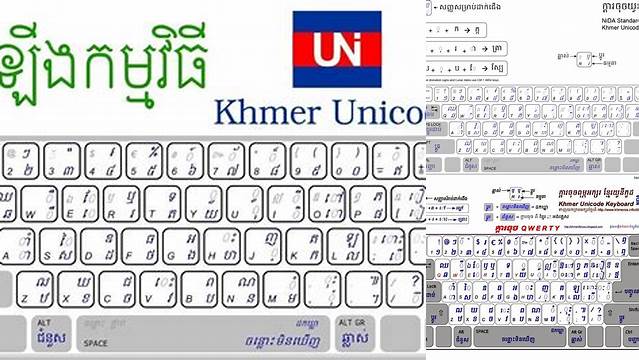
Hey guys! Are you looking to download Khmer Unicode fonts for your Windows 10 system? You've come to the right place! Typing in Khmer can be a breeze once you have the correct fonts installed. This article will guide you through everything you need to know about Khmer Unicode fonts, why they're important, and how to get them set up on your computer. So, let's dive in and make your Khmer typing experience smooth and easy! We'll cover everything from the basics to troubleshooting tips, so you'll be a pro in no time. Let's get started!
1. What is Khmer Unicode Font?
Khmer Unicode fonts are essential for anyone who wants to type in the Khmer script on their computer. Unicode is a universal character encoding standard that allows computers to represent text from almost all writing systems. Without Khmer Unicode font, your computer might not display Khmer characters correctly, showing boxes or other symbols instead. So, when we talk about free download Khmer Unicode font for Windows 10, we're talking about getting the right tool to make your digital communication in Khmer seamless. These fonts ensure that your documents, emails, and web content display Khmer text accurately. Think of it as the language pack for your computer, but specifically for Khmer! Having the correct fonts installed not only ensures readability but also maintains the integrity of the script across different devices and platforms.
2. Why You Need Khmer Unicode Fonts on Windows 10
Why do you actually need Khmer Unicode fonts on Windows 10? Well, if you're planning to create documents, send emails, or browse websites in Khmer, these fonts are non-negotiable. Without them, you'll likely see gibberish instead of the beautiful Khmer script. Imagine trying to read a book with missing letters – that's what it's like trying to work with Khmer text without the right fonts. Plus, using Khmer Unicode fonts ensures that your text is universally readable. This means that anyone, anywhere, with a computer that supports Unicode, will be able to view your content correctly. This is especially important for official documents, academic papers, and professional communications where clarity and accuracy are key. So, when considering a free download Khmer Unicode font for Windows 10, remember you're not just getting fonts; you're ensuring your words are seen and understood as intended.
3. Best Khmer Unicode Fonts for Windows 10
Okay, so you're convinced you need Khmer Unicode fonts, but which ones are the best? There are a few standout options that are widely used and highly recommended. One popular choice is Khmer OS, a font that's known for its clarity and readability. Another great option is MoolBoran, which offers a more traditional look. You might also want to check out Limon. Each font has its unique style, so it's worth trying a few to see which one you prefer. When you're looking for a free download Khmer Unicode font for Windows 10, consider what kind of documents you'll be creating. For formal documents, a clean and professional font like Khmer OS might be ideal. For more creative or traditional content, MoolBoran could be a better fit. Ultimately, the best Khmer Unicode font is the one that looks good to you and meets your specific needs.
7. Setting Khmer as Your Keyboard Language
Now that you've got your free download Khmer Unicode font for Windows 10 installed, it's time to set Khmer as your keyboard language. This will allow you to actually type in Khmer. First, go to your Windows settings by clicking the Start button and then the gear icon. In Settings, click on “Time & Language,” and then select “Language” from the left sidebar. Under the “Preferred languages” section, click “Add a language.” Search for “Khmer” and select it. Windows will then download and install the language pack. Once installed, you'll see Khmer in your list of preferred languages. To switch to the Khmer keyboard, look for the language icon in your system tray (usually located in the bottom-right corner of your screen). Click on it, and you'll see a menu of available languages. Select Khmer, and voila! You're now ready to type in Khmer. If you ever want to switch back, just click the language icon again and choose your preferred language.
8. Typing in Khmer: Keyboard Layout and Tips
Okay, you've done the free download Khmer Unicode font for Windows 10 and set up your keyboard. Now, let's talk about actually typing in Khmer! The Khmer keyboard layout might look a little different from what you're used to. It's designed to accommodate the unique characters and symbols of the Khmer script. So, it might take a little practice to get the hang of it. One helpful tip is to use an on-screen keyboard to familiarize yourself with the layout. Windows 10 has a built-in on-screen keyboard that you can access by searching for “On-Screen Keyboard” in the Start menu. Another tip is to look for online resources that provide keyboard layouts and typing tutorials. There are also software programs that can help you learn the Khmer keyboard layout more efficiently. Don't get discouraged if it feels awkward at first. With a bit of practice, you'll be typing in Khmer like a pro in no time. Remember, the key is consistency and patience. Keep practicing, and you'll get there!
9. Troubleshooting Khmer Unicode Font Issues
Sometimes, even after a successful free download Khmer Unicode font for Windows 10 and installation, you might encounter issues. Don't worry, it happens! One common problem is that the Khmer text appears as boxes or squares instead of the actual characters. This usually means that the font isn't being recognized correctly. A simple fix for this is to restart the application you're using or even your computer. Another issue could be that the font isn't displaying correctly in certain programs. In this case, try setting the default font in the program's settings to your Khmer Unicode font. If you're still having trouble, check your language settings to make sure Khmer is set as the preferred language. Sometimes, conflicts with other fonts can also cause problems. If you suspect this is the case, try temporarily disabling other fonts to see if that resolves the issue. And if all else fails, a quick search online can often provide solutions to specific problems you're facing. Remember, troubleshooting is a normal part of using any new technology, so don't get frustrated – just keep trying!
10. Using Khmer Unicode Font in Microsoft Word
Using your free download Khmer Unicode font for Windows 10 in Microsoft Word is super easy and lets you create beautiful Khmer documents. First, make sure you've installed the font and set Khmer as your keyboard language, as we discussed earlier. Now, open Microsoft Word and start a new document. To type in Khmer, you'll need to select your Khmer Unicode font from the font dropdown menu in the Home tab. Once you've selected the font, switch your keyboard language to Khmer using the language icon in the system tray. Now you can start typing in Khmer! If you don't see the Khmer font in the list, try restarting Word. Sometimes, the application needs to be restarted to recognize newly installed fonts. You can also adjust the font size and style just like you would with any other font. With Khmer Unicode fonts in Word, you can create everything from simple letters to complex reports in Khmer, making your digital communication even richer.
11. Khmer Unicode Font for Web Browsing
Having a free download Khmer Unicode font for Windows 10 is crucial for a smooth web browsing experience in Khmer. Without the correct fonts installed, websites that use Khmer script might display garbled text or empty boxes. Fortunately, installing Khmer Unicode fonts ensures that web browsers can render Khmer text correctly. Most modern browsers, like Chrome, Firefox, and Edge, automatically detect and use Unicode fonts if they're available on your system. So, once you've installed your Khmer Unicode fonts, you should be able to view Khmer websites without any issues. If you do encounter problems, check your browser settings to ensure that the default font is set to a Khmer Unicode font. You can usually find font settings in the browser's appearance or language options. By having the right fonts installed, you'll be able to enjoy Khmer content online, whether it's news articles, social media posts, or educational resources.
12. Using Khmer Unicode Font in Adobe Photoshop
If you're a graphic designer or work with images, having a free download Khmer Unicode font for Windows 10 is essential for using Khmer text in Adobe Photoshop. Just like with other applications, you need to ensure the font is installed on your system first. Once that's done, open Photoshop and create a new document or open an existing one. To add Khmer text, select the Type tool (the “T” icon) and click on your canvas. Before you start typing, choose your Khmer Unicode font from the font dropdown menu in the Character panel. If you don't see the font, make sure Photoshop is recognizing it by restarting the application. Also, ensure that your keyboard language is set to Khmer. Now, you can type in Khmer directly onto your image. Photoshop allows you to adjust the font size, color, and other text properties, giving you full control over how your Khmer text looks. Whether you're designing posters, social media graphics, or website banners, Khmer Unicode fonts in Photoshop ensure your Khmer text is displayed beautifully and accurately.
13. Khmer Unicode Font for Email Communication
For effective email communication in Khmer, a free download Khmer Unicode font for Windows 10 is a must-have. When you send emails in Khmer, you want to be sure that the recipient sees your message as intended. Using Khmer Unicode fonts ensures that your email text displays correctly, regardless of the recipient's operating system or email client. To use Khmer Unicode fonts in your email, first, make sure you've installed the font on your computer. Then, open your email client (like Outlook, Gmail, or Thunderbird) and start composing a new email. Before you start typing, select your Khmer Unicode font from the font options. You might need to adjust your email client’s settings to allow for Unicode fonts if you're having trouble. Also, ensure that your keyboard language is set to Khmer. Now you can type your email in Khmer, confident that your message will be clear and readable. Using Khmer Unicode fonts in your emails not only makes your messages look professional but also avoids any potential misunderstandings due to incorrect character display.
14. Khmer Unicode Font for Social Media
If you're active on social media and want to share posts in Khmer, getting a free download Khmer Unicode font for Windows 10 is super important. Social media platforms like Facebook, Twitter, and Instagram rely on Unicode to display text correctly. Without Khmer Unicode fonts installed on your device, your Khmer posts might appear as a jumble of boxes or unrecognizable characters to others. To ensure your Khmer posts look great, first, download and install a Khmer Unicode font on your Windows 10 system. Then, make sure Khmer is set as your keyboard language. When you're creating a post, simply type in Khmer using your chosen font. The platform should automatically display the text correctly, as long as your device supports Unicode. If you encounter any issues, try refreshing the page or restarting your browser. Sharing your thoughts and ideas in Khmer on social media becomes much easier and more effective with the right fonts in place.
15. Free Khmer Unicode Font Alternatives
Looking for free download Khmer Unicode font for Windows 10 alternatives? You've got options! While Khmer OS and MoolBoran are popular choices, there are other fonts you might want to explore. One alternative is the Mondulkiri font, which is known for its clean and modern design. Another option is Dangrek, a font that offers a more traditional Khmer script appearance. You can also check out fonts like Battambang and Siemreap, which are designed with readability in mind. Each font has its own unique style, so it's worth trying out a few to see which one best suits your needs. Websites like Google Fonts and FontSpace are great resources for finding free Khmer Unicode fonts. When choosing a font, consider the purpose of your text. For formal documents, a more professional-looking font might be ideal, while creative projects might benefit from a more stylized option. Exploring different alternatives ensures you find the perfect font to match your style and content.
16. Khmer Unicode Font for Programming
For developers working with Khmer script, having a free download Khmer Unicode font for Windows 10 is crucial for coding and displaying text in applications. When you're writing code that involves Khmer text, you need a font that supports the Unicode standard to ensure the characters are displayed correctly in your development environment. This is especially important for user interfaces, error messages, and documentation. A good Khmer Unicode font for programming should be clear, legible, and consistent across different platforms and devices. Fonts like Khmer OS and Limon are often used in programming contexts due to their readability. Before you start coding, make sure the font is installed on your system and selected in your code editor or IDE settings. You might also need to adjust character encoding settings in your project to ensure proper Khmer text rendering. With the right fonts, you can create software and applications that seamlessly incorporate the Khmer language.
17. Creating Khmer Documents with Unicode Fonts
Creating Khmer documents becomes a breeze when you have a reliable free download Khmer Unicode font for Windows 10 installed. Whether you're drafting a letter, writing a report, or compiling a presentation, the right font ensures your text is clear, readable, and professional. Start by installing your chosen Khmer Unicode font and setting Khmer as your keyboard language. Then, open your preferred word processing program, like Microsoft Word or Google Docs. Select your Khmer Unicode font from the font dropdown menu before you start typing. This will ensure that all the text you enter is displayed correctly in Khmer script. Remember to save your document in a format that supports Unicode, such as .docx or .pdf, to prevent any font display issues when sharing your document with others. With the right fonts and settings, creating Khmer documents is straightforward and efficient, allowing you to communicate effectively in the Khmer language.
18. Where to Find Khmer Unicode Keyboard Layouts
Finding Khmer Unicode keyboard layouts is essential once you've completed your free download Khmer Unicode font for Windows 10. These layouts show you where each Khmer character is located on your keyboard, making it easier to type in Khmer. A quick online search for “Khmer keyboard layout” will turn up numerous images and diagrams. Many websites dedicated to Khmer language and culture also provide keyboard layouts as resources. You can also find layouts within Windows 10 itself. Go to Settings > Time & Language > Language, select Khmer, and click “Options.” Under “Keyboards,” you can add or view different Khmer keyboard layouts. Another helpful tool is the On-Screen Keyboard in Windows, which displays the keyboard layout on your screen. This can be a great way to learn the layout and practice typing. By having a Khmer keyboard layout handy, you'll be able to type in Khmer more efficiently and accurately.
19. Khmer Unicode Font for Graphic Design Projects
For graphic designers, a free download Khmer Unicode font for Windows 10 is a must-have for incorporating Khmer text into design projects. Whether you're working on posters, brochures, logos, or website graphics, the right font can enhance the visual appeal and readability of your designs. Start by selecting a Khmer Unicode font that matches the style and tone of your project. Fonts like Khmer OS are clean and professional, while others offer a more traditional or stylized look. Once you've installed the font, you can use it in graphic design software like Adobe Photoshop, Illustrator, or InDesign. When adding text to your design, make sure to select the Khmer Unicode font and set your keyboard language to Khmer. You can then adjust the font size, color, and other properties to create visually stunning Khmer typography. Using Khmer Unicode fonts in graphic design ensures that your text is displayed correctly and communicates your message effectively.
20. Tips for Using Khmer Unicode Font Effectively
To make the most of your free download Khmer Unicode font for Windows 10, here are some tips for using it effectively. First, always ensure that you have the font installed on your system and that Khmer is set as your keyboard language. When typing in Khmer, take advantage of the on-screen keyboard or keyboard layout diagrams to familiarize yourself with the character positions. Choose a font that suits the purpose of your document or design. Clean and legible fonts are best for formal documents, while more stylized fonts can add flair to creative projects. Use consistent formatting throughout your text, including font size, spacing, and alignment. When sharing documents or designs, save them in a format that supports Unicode, such as .docx or .pdf, to prevent font display issues. If you encounter any problems, try restarting the application or your computer. By following these tips, you can use Khmer Unicode fonts effectively and create professional-looking Khmer content.
21. Understanding Khmer Script and Unicode
Understanding the relationship between Khmer script and Unicode is key to effectively using a free download Khmer Unicode font for Windows 10. The Khmer script, also known as Cambodian script, is an abugida script used to write the Khmer language. It has its own unique set of characters, vowels, and symbols. Unicode is a universal character encoding standard that assigns a unique code point to each character in various writing systems, including Khmer. This standard allows computers to display and process text in different languages consistently. Khmer Unicode fonts are designed to support the Unicode standard, ensuring that Khmer characters are displayed correctly on different devices and platforms. When you install a Khmer Unicode font, your computer can translate the Unicode code points into visual representations of the Khmer characters. This means that when you type in Khmer, the characters will appear as intended, making your digital communication in Khmer seamless and accurate.
22. The Importance of Unicode Compliance for Khmer Fonts
Unicode compliance is incredibly important for Khmer fonts, especially when considering a free download Khmer Unicode font for Windows 10. Unicode is the global standard for character encoding, ensuring that text can be displayed consistently across different devices, operating systems, and software applications. A Khmer font that is fully Unicode compliant will accurately render all Khmer characters, vowels, and symbols, preventing issues like missing characters or incorrect display. When a font isn't Unicode compliant, you might see boxes or other placeholder symbols instead of the intended Khmer letters. This can lead to miscommunication and frustration, especially when working on important documents or projects. By choosing a Unicode compliant Khmer font, you ensure that your text will be displayed correctly for anyone who views it, regardless of their system configuration. This is crucial for professional communication, academic writing, and any other context where clarity and accuracy are essential.
23. How to Check if a Khmer Font is Unicode Compliant
Before you finalize your free download Khmer Unicode font for Windows 10, it's a good idea to check if the font is truly Unicode compliant. This ensures that the font will display all Khmer characters correctly across different platforms and applications. One simple way to check is to type out a variety of Khmer characters, including vowels, consonants, and symbols, in a text editor or word processor. If all the characters display correctly without any boxes or placeholder symbols, the font is likely Unicode compliant. Another method is to use online Unicode character viewers or font testing tools. These tools allow you to enter Khmer text and see how it renders in various fonts. If you're downloading a font from a reputable source, it should typically state whether the font is Unicode compliant. However, it's always wise to double-check, especially if you're working on important projects. By verifying Unicode compliance, you can avoid potential display issues and ensure your Khmer text looks its best.
24. Common Mistakes When Installing Khmer Unicode Fonts
Even with a free download Khmer Unicode font for Windows 10, you might run into a few common installation mistakes. One frequent error is forgetting to extract the font files from the downloaded ZIP folder. Font files often come in ZIP archives, and you need to extract them before you can install the font. Another mistake is double-clicking the ZIP file instead of the actual font file (.ttf or .otf). This will show you the contents of the archive, but won't install the font. Another common issue is not restarting the application or computer after installing the font. Some programs need to be restarted to recognize newly installed fonts. Also, make sure you're installing the font for your user account, not just temporarily for the current session. If you're still having trouble, double-check that the font file is in the correct format (.ttf or .otf) and that you have the necessary permissions to install fonts on your system. By being aware of these common mistakes, you can avoid installation headaches and get your Khmer Unicode font up and running smoothly.
25. Updating Your Khmer Unicode Font on Windows 10
Keeping your free download Khmer Unicode font for Windows 10 up to date is a good practice to ensure optimal performance and compatibility. Font updates can include bug fixes, improved character rendering, and support for new Unicode standards. To update your Khmer Unicode font, you'll typically need to download the latest version from the font's official website or a trusted font repository. Before you install the update, it's a good idea to close any applications that are using the font, such as word processors or design software. Then, follow the installation instructions provided with the font update. In many cases, you can simply double-click the font file and click “Install” again. Windows 10 will usually recognize that a previous version is installed and offer to replace it. After the update is complete, restart your computer to ensure that all changes are applied. Regularly updating your Khmer Unicode font helps you stay current with the latest standards and enjoy a smoother typing experience.
26. The Future of Khmer Unicode Fonts
The future of Khmer Unicode fonts looks promising, with ongoing developments aimed at improving usability, accessibility, and aesthetic appeal. As technology evolves, there's a growing need for Khmer fonts that work seamlessly across various platforms and devices, from desktops and laptops to smartphones and tablets. Font designers are continually working on creating new Khmer Unicode fonts that are not only visually appealing but also optimized for on-screen readability. There's also an increasing focus on incorporating Khmer script into web design and digital media, leading to the development of fonts specifically tailored for these applications. Unicode standards are also evolving to accommodate the full range of Khmer characters and symbols, ensuring accurate representation of the language in digital contexts. This means that future free download Khmer Unicode font for Windows 10 options will likely be even more versatile, user-friendly, and visually stunning, making Khmer communication in the digital world easier and more enjoyable.
27. Resources for Learning More About Khmer Script
If you're diving into the world of free download Khmer Unicode font for Windows 10, you might also want to explore resources for learning more about the Khmer script itself. Understanding the script can enhance your appreciation for the fonts and improve your typing skills. There are numerous online resources available, including websites, tutorials, and language learning apps that offer lessons on Khmer script. Many universities and language schools also offer Khmer language courses, both in person and online. Additionally, you can find books and workbooks that focus on Khmer script and grammar. For visual learners, YouTube can be a great resource, with many channels offering video lessons on Khmer writing. Don't forget to explore Khmer cultural websites and forums, where you can connect with other learners and native speakers. Immersing yourself in the language and script will make your Khmer typing journey even more rewarding.
28. Common Khmer Words and Phrases to Practice Typing
Once you've got your free download Khmer Unicode font for Windows 10 set up, practicing typing common Khmer words and phrases is a great way to improve your skills. Start with simple words like “សួស្តី” (suostei), which means “hello,” and “អរគុណ” (orkun), which means “thank you.” Practice typing everyday phrases like “តើអ្នកសុខសប្បាយជាទេ?” (tae anak sok sabay chea te?), which means “how are you?” You can also try typing numbers, dates, and common nouns like “ផ្ទះ” (phteah), which means “house,” and “ឡាន” (laan), which means “car.” Another helpful exercise is to find Khmer text online, such as news articles or blog posts, and try typing out sections of it. This will help you familiarize yourself with different writing styles and vocabulary. Don't be afraid to make mistakes – practice makes perfect! The more you type, the more comfortable you'll become with the Khmer keyboard layout and character combinations.
29. Setting up Khmer Input on Other Devices
While this guide focuses on a free download Khmer Unicode font for Windows 10, you might also want to set up Khmer input on other devices, like your smartphone or tablet. The process is generally similar across different operating systems. On Android devices, you can typically add Khmer as a language in the settings menu and then choose a Khmer keyboard layout. Similarly, on iOS devices (iPhones and iPads), you can add Khmer as a keyboard language in the keyboard settings. Many third-party keyboard apps also offer Khmer keyboard layouts, giving you additional customization options. Once you've added the Khmer keyboard, you can switch between languages by tapping the globe icon on your keyboard. Setting up Khmer input on your mobile devices allows you to communicate in Khmer on the go, whether you're sending messages, posting on social media, or writing emails. This ensures that you can stay connected in Khmer across all your devices.
30. Maintaining and Managing Your Fonts on Windows 10
After you've completed your free download Khmer Unicode font for Windows 10 and installed it, it's important to know how to maintain and manage your fonts effectively. Windows 10 has a built-in font management tool that allows you to view, organize, and uninstall fonts. To access this tool, simply type “Fonts” in the Windows search bar and select “Font settings.” Here, you can see a list of all the fonts installed on your system. You can also preview each font by clicking on it. If you need to uninstall a font, select it and click the “Uninstall” button. It's a good idea to periodically review your font collection and remove any fonts you no longer use, as having too many fonts can slow down your system. You can also organize your fonts into folders if you have a large collection. Regularly maintaining your fonts helps keep your system running smoothly and ensures that you can easily find the fonts you need. So, make font management a part of your routine to keep your Windows 10 system in top shape!